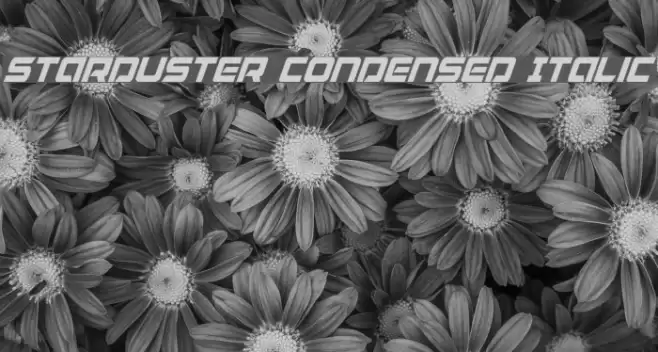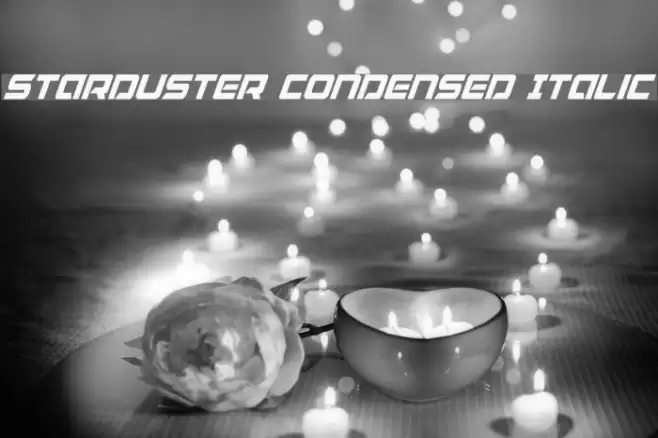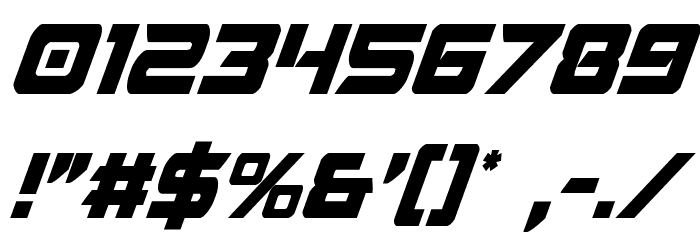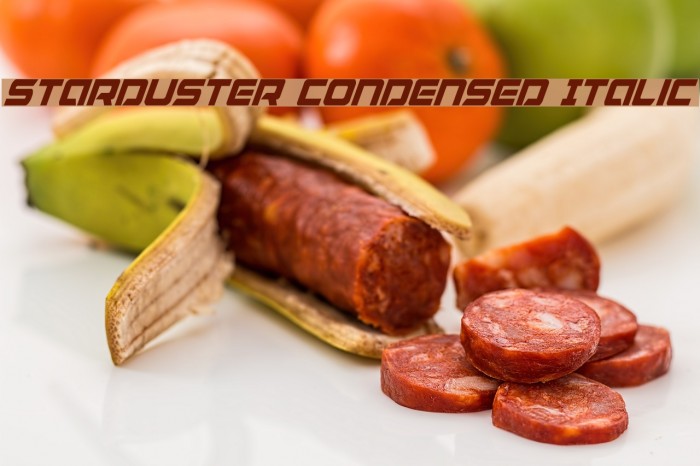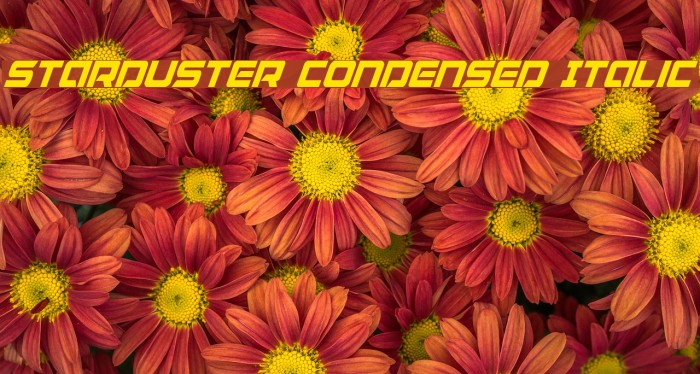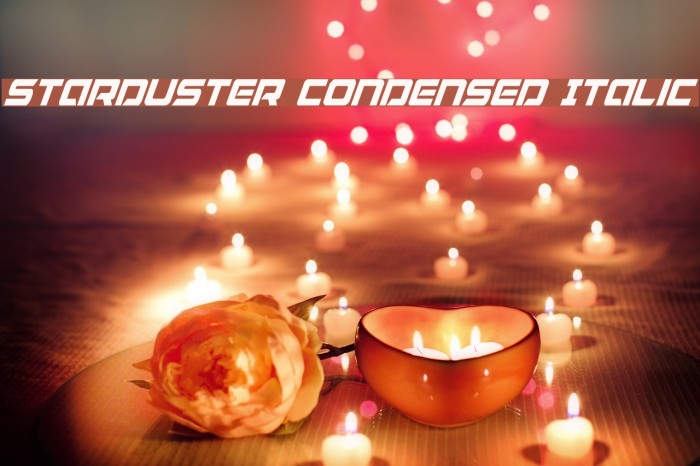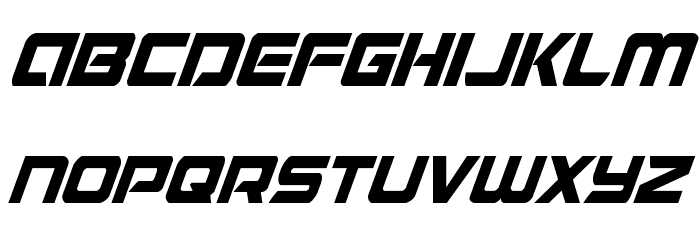
Starduster Condensed Italic Font
Starduster Condensed Italic Description
This font features a dynamic and futuristic design, characterized by its condensed and italicized form. The letters are bold with sharp angles and a forward-leaning stance, giving a sense of motion and speed. The uppercase and lowercase letters maintain a consistent style, with a uniform stroke width that enhances readability. The numerals and special characters are designed to match the overall aesthetic, making them suitable for a variety of applications. The font's unique style is ideal for projects that require a modern and edgy look.
A bold, condensed, and italicized font with a futuristic and dynamic style from Uncategorized fonts.
- Proposed Projects: Ideal for branding, sports team logos, automotive designs, and sci-fi themed projects.